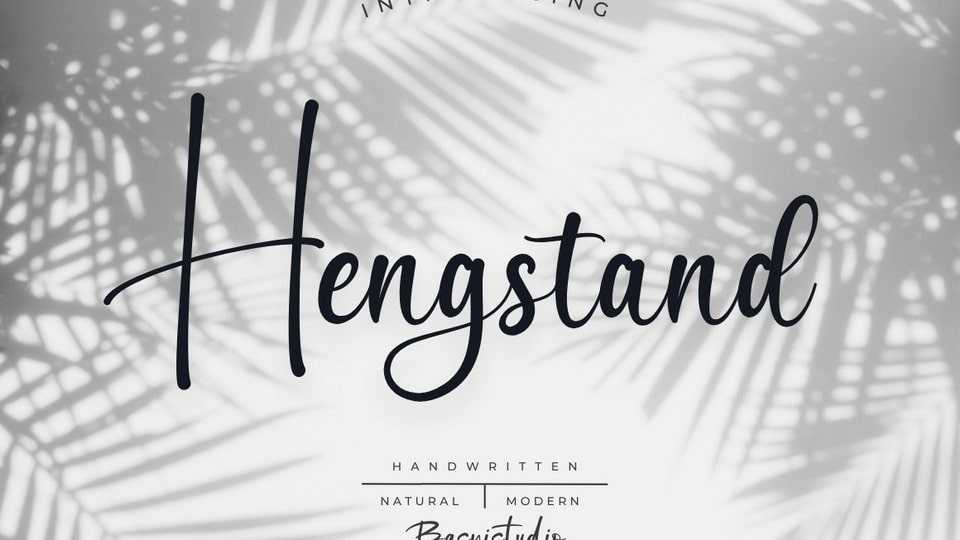
Download Hengstand font, a pretty handwritten script typeface, made with natural look and smooth precision strokes, perfect for branding, websites, and editorial designs.